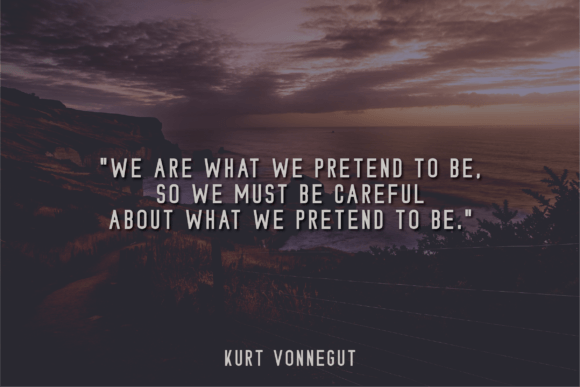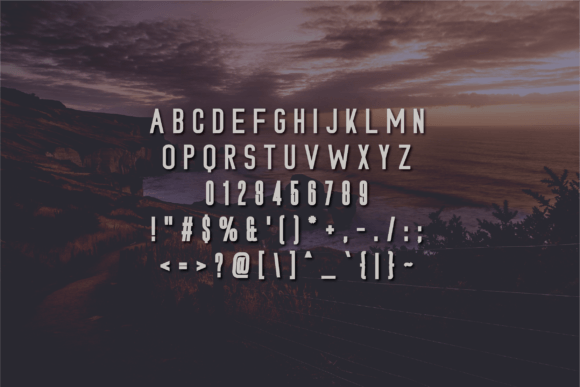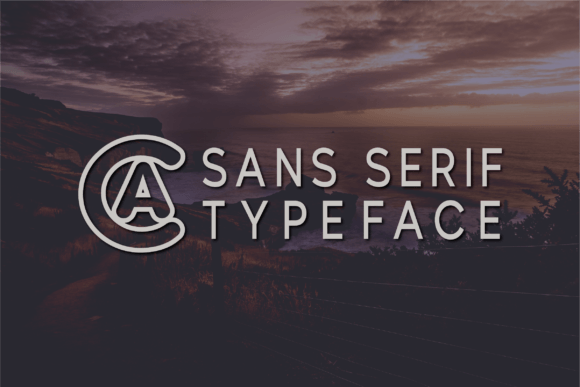
Introduction to Mosphere Font
Mosphere is a versatile, modern, and classy sans serif font perfect for logos, weddings, invitations, quotes, advertisements, print, magazines, and more.
Add it to your most creative ideas, and notice how it makes them come alive .
Key Features of Mosphere Font
Why Choose Mosphere Font?
Mosphere Font offers exceptional quality and versatility, making it a valuable addition to your design toolkit. Whether you’re creating for personal projects or commercial use, Mosphere Font delivers professional results.